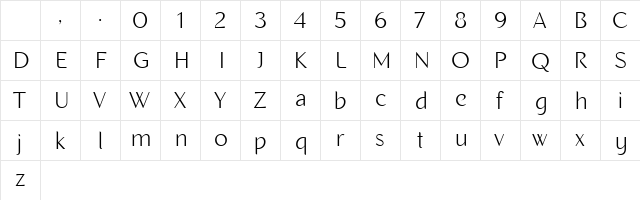
Recline Light is a composed and adaptable typeface that performs quietly and consistently across a wide range of design contexts. Its slender proportions lend an understated elegance to any composition.